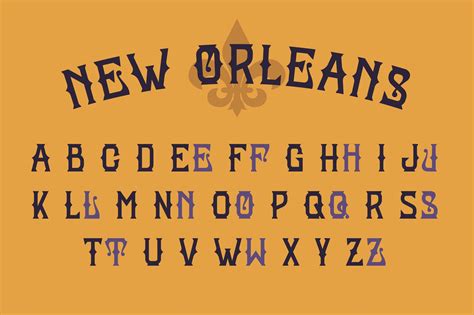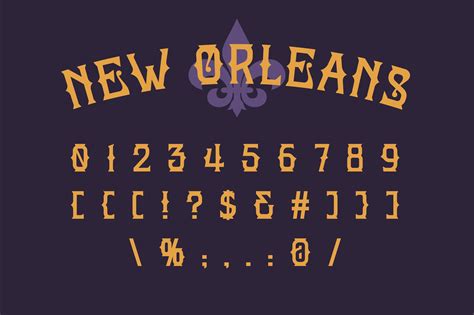
Typography is an art form that can transform the visual appeal of any design, and choosing the right font is crucial for creating a unique and engaging aesthetic. One font that stands out for its distinctive charm and historical significance is the New Orleans Font. This font is inspired by the vibrant and eclectic culture of New Orleans, a city known for its rich history, jazz music, and Creole cuisine. The New Orleans Font captures the essence of this lively city, making it a popular choice for designers looking to add a touch of Southern charm to their projects.
Understanding the New Orleans Font
The New Orleans Font is more than just a typeface; it's a celebration of the city's unique identity. The font's design elements often include ornate details, reminiscent of the city's French Quarter architecture, and a playful, hand-drawn style that evokes the spirit of street art and vintage posters. This font is perfect for projects that aim to evoke a sense of nostalgia, creativity, and cultural richness.
Historical Context of the New Orleans Font
The New Orleans Font draws inspiration from the city's deep-rooted history. New Orleans, founded in 1718, has a complex cultural heritage that blends French, African, and American influences. This fusion is reflected in the city's architecture, music, and cuisine, all of which have inspired the design of the New Orleans Font. The font's intricate details and playful style are a nod to the city's vibrant past and its enduring influence on modern culture.
Design Elements of the New Orleans Font
The New Orleans Font is characterized by several key design elements that set it apart from other typefaces. These elements include:
- Ornate Details: The font often features intricate, decorative elements that add a touch of elegance and sophistication.
- Hand-Drawn Style: The playful, hand-drawn style of the New Orleans Font gives it a unique, personal touch, making it ideal for projects that require a more casual and approachable feel.
- Vintage Aesthetic: The font's design often includes elements that evoke a sense of nostalgia, such as vintage posters and street art, making it perfect for projects that aim to capture a retro vibe.
- Cultural Symbols: The New Orleans Font often incorporates cultural symbols and motifs that are specific to the city, such as jazz notes, Mardi Gras masks, and Creole patterns.
Applications of the New Orleans Font
The New Orleans Font is incredibly versatile and can be used in a variety of design projects. Some of the most common applications include:
- Event Invitations: The font's playful and elegant style makes it perfect for event invitations, especially for parties, weddings, and other special occasions.
- Branding and Logos: The New Orleans Font can add a unique touch to branding and logo designs, helping businesses stand out with a distinctive and memorable identity.
- Posters and Flyers: The font's vintage aesthetic and ornate details make it ideal for posters and flyers, especially for events that have a retro or cultural theme.
- Packaging Design: The New Orleans Font can enhance packaging designs, adding a touch of Southern charm and cultural richness to products.
- Web Design: The font can be used in web design to create a visually appealing and culturally rich user experience.
- Choose the Right Project: Identify the project where the New Orleans Font would be most effective. Consider the theme and overall aesthetic of your design to ensure the font complements it well.
- Select the Appropriate Style: The New Orleans Font comes in various styles, including regular, bold, and italic. Choose the style that best fits your design needs.
- Pair with Complementary Fonts: To create a balanced and harmonious design, pair the New Orleans Font with complementary fonts. For example, you can use a more traditional serif font for body text and the New Orleans Font for headings.
- Adjust Size and Spacing: Ensure that the font size and spacing are appropriate for your design. The New Orleans Font can be quite ornate, so it's important to adjust the size and spacing to maintain readability.
- Test and Refine: Test the font in your design and make any necessary adjustments. Pay attention to how the font looks in different contexts and on various devices.
đź’ˇ Note: When using the New Orleans Font, it's important to consider the overall aesthetic of your design. The font's ornate details and playful style can be overwhelming if not used judiciously. Always test the font in different contexts to ensure it enhances your design without detracting from its readability.
Inspiration from New Orleans Culture
The New Orleans Font is deeply rooted in the city's rich cultural heritage. To fully appreciate and utilize this font, it's helpful to understand some of the key cultural elements that inspire it: